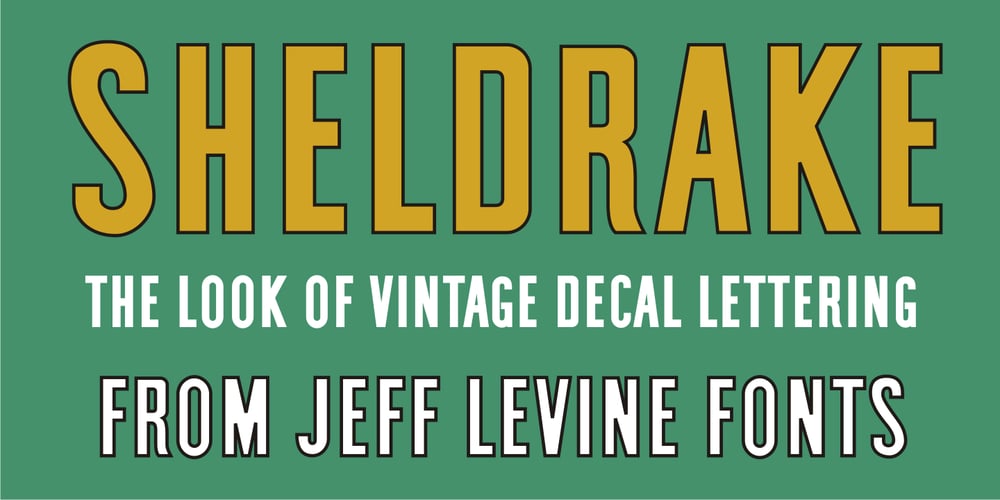
Sheldrake JNL Font Family was designed by Jeff Levine and published by Jeff Levine. Sheldrake JNL contains 1 styles and family package options. Sheldrake JNL is the second in a series of display fonts modeled from actual water-applied decals that were manufactured by the Duro Decal Company of Chicago (now Duro Art Industries). The font’s name derives from the actual phone exchange for Duro, back in the days when a telephone listing had a name-number assignment for recognition. In this case, their number began as “SH(eldrake)-3”.